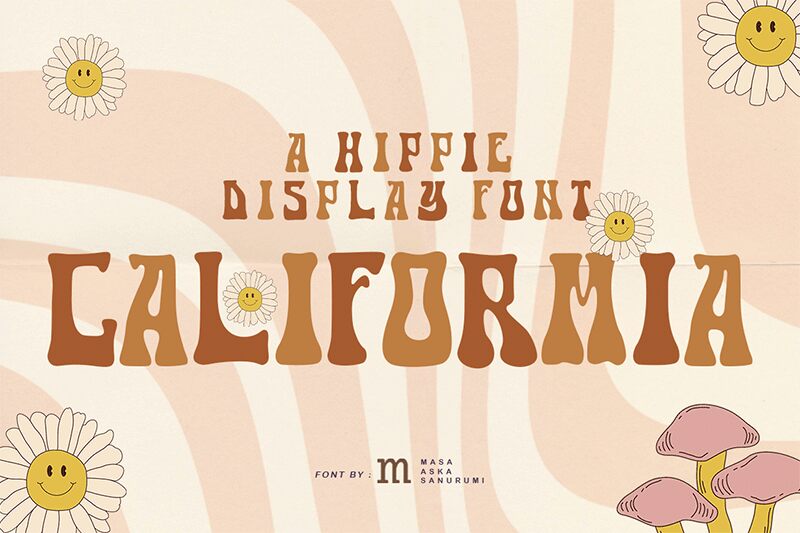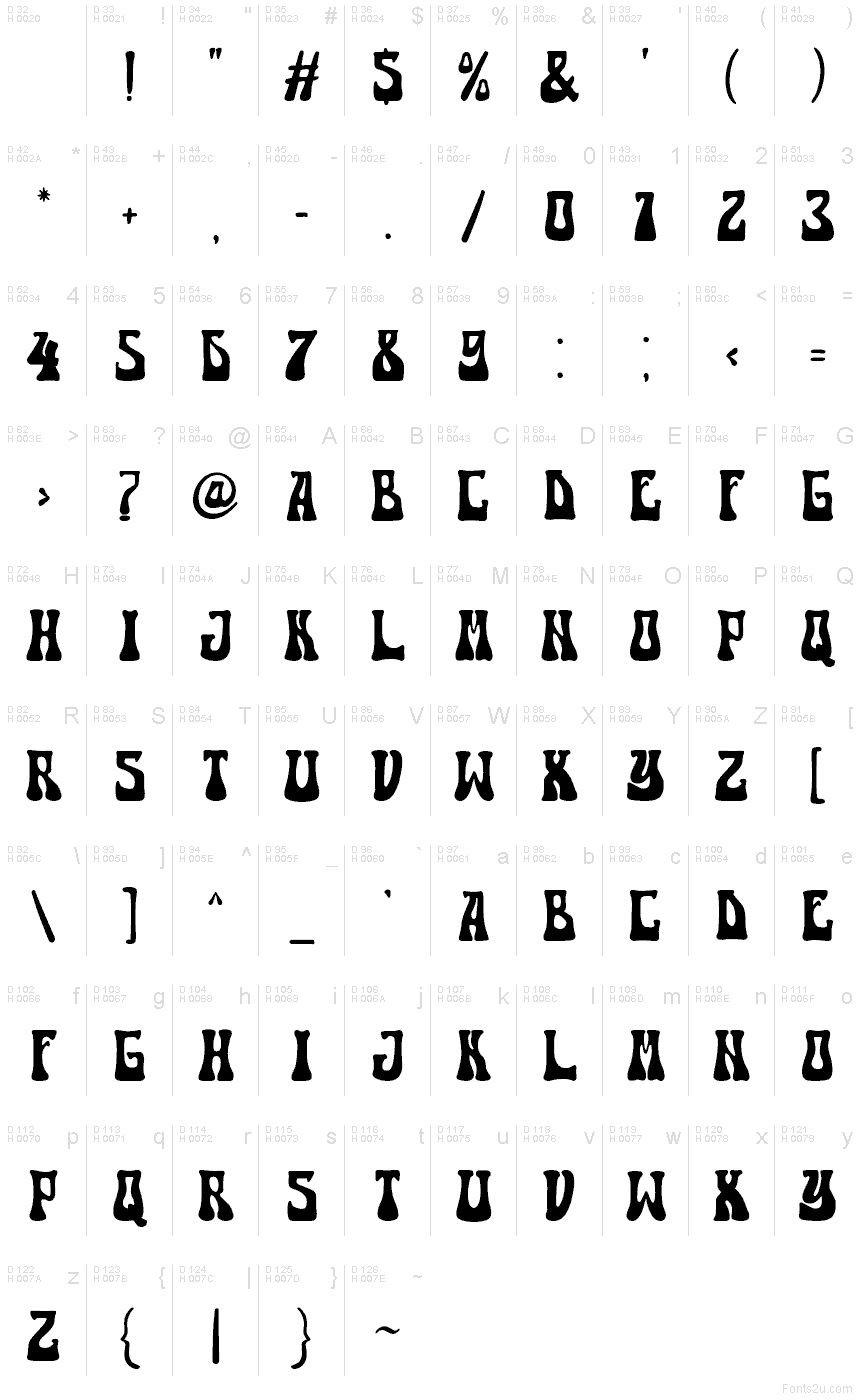
Califormia font by Masa Aska Sanurumi is a free groovy display typeface that looks like it’s been sun-soaked and slightly melted in the best way. Each letter sways with chunky, wavy sides and tight, upright proportions, creating a bold wall of ink that feels both retro and a little surreal. The texture is dense and inky, giving headlines a solid, almost hand-cut presence that jumps off the page or screen.
Using Califormia, you can instantly tap into ’60s–’70s poster vibes for music festival branding, psychedelic gig flyers, eye-catching merch, album covers, packaging, and bold social graphics. This free font works best when set large, letting those liquid silhouettes really show. Pair it with a simple, clean sans serif for body copy to keep the wildness of Califormia focused where it shines most: big, loud, and unforgettable.